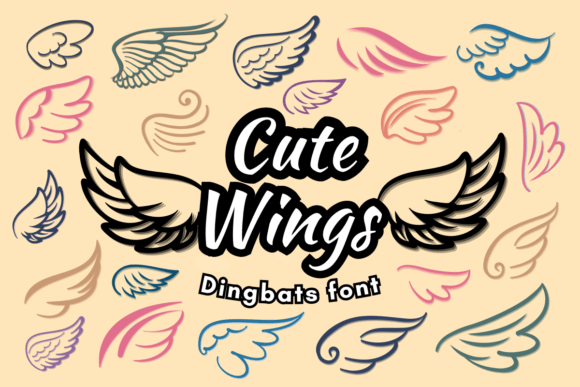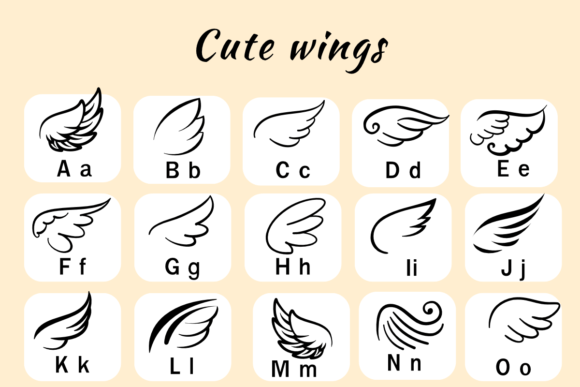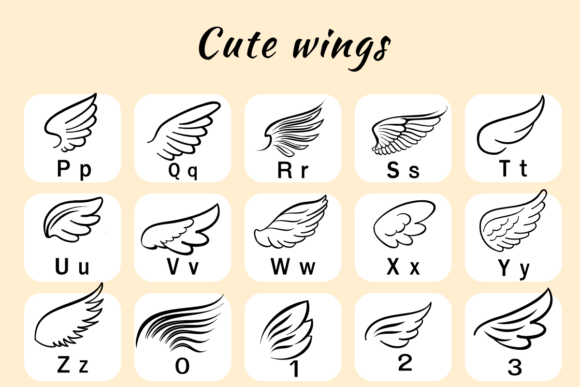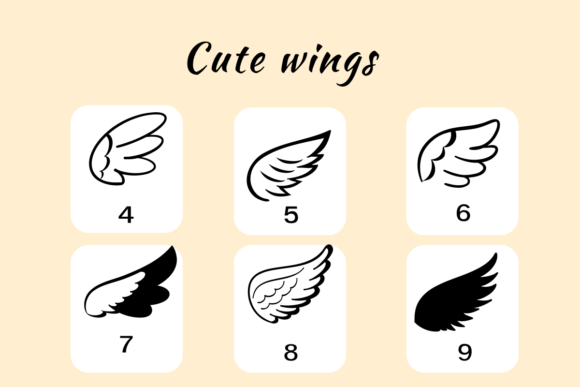
Cute Wings Font
About the Cute Wings Font
The Cute Wings Font offers a perfect balance of form and function for your design needs. Cute Wings is a dingbats font with a sketched theme style. This font can enhance your creative projects such as wedding invitations, DIY, crafts, decorations, logos, and many other creative ideas.
Cute Wings’ sketched style is best suited for headlines, logos, and short, impactful text within branding materials or packaging design. Its whimsical nature makes it ideal for projects targeting a younger demographic or those with a playful, handcrafted aesthetic. Avoid using it for body text or lengthy paragraphs; its decorative nature reduces readability in extended use.
This font pairs well with clean sans-serif fonts like Open Sans or Lato for a balanced contrast, or a more elegant serif such as Playfair Display to add a touch of sophistication. For a more whimsical feel, consider pairing it with a script font like Great Vibes, but maintain careful balance to prevent visual clutter.
Cute Wings projects a friendly, approachable personality, ideal for brands focused on crafts, children’s products, or small businesses aiming for a handmade charm.
Cute Wings Font Usage Examples
Cute Wings Font Example